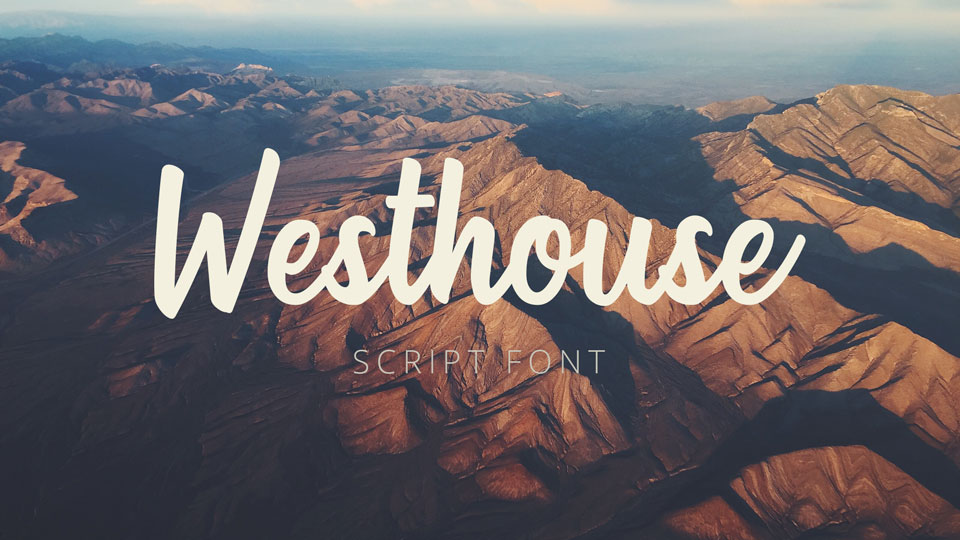
Feb 11, 2025Script & HandwrittenWesthouse Script Westhouse is a natural handwritten script font. It contains a complete set of glyphs, including multilingual support.Westhouse font is perfect for logos, labels, branding, packaging, wedding design and more. Font DetailsDesigned by: Iqbal HabibiWebsiteLicense: Free for commercial use Download Westhouse ScriptFile size: 16.53 KBCreated: February 16, 2025Updated: February 16, 2025 Download Explore similar fonts Afilora Font Sound Seekers Font Kertas Font Relsika Font Machinay Font Hidden Stories Font # Brush# Casual# Cursive# Handwriting# Lettering More fonts by Iqbal HabibiOld Maquine FontFroadmile FontWoodland ScriptGolden Hills Script